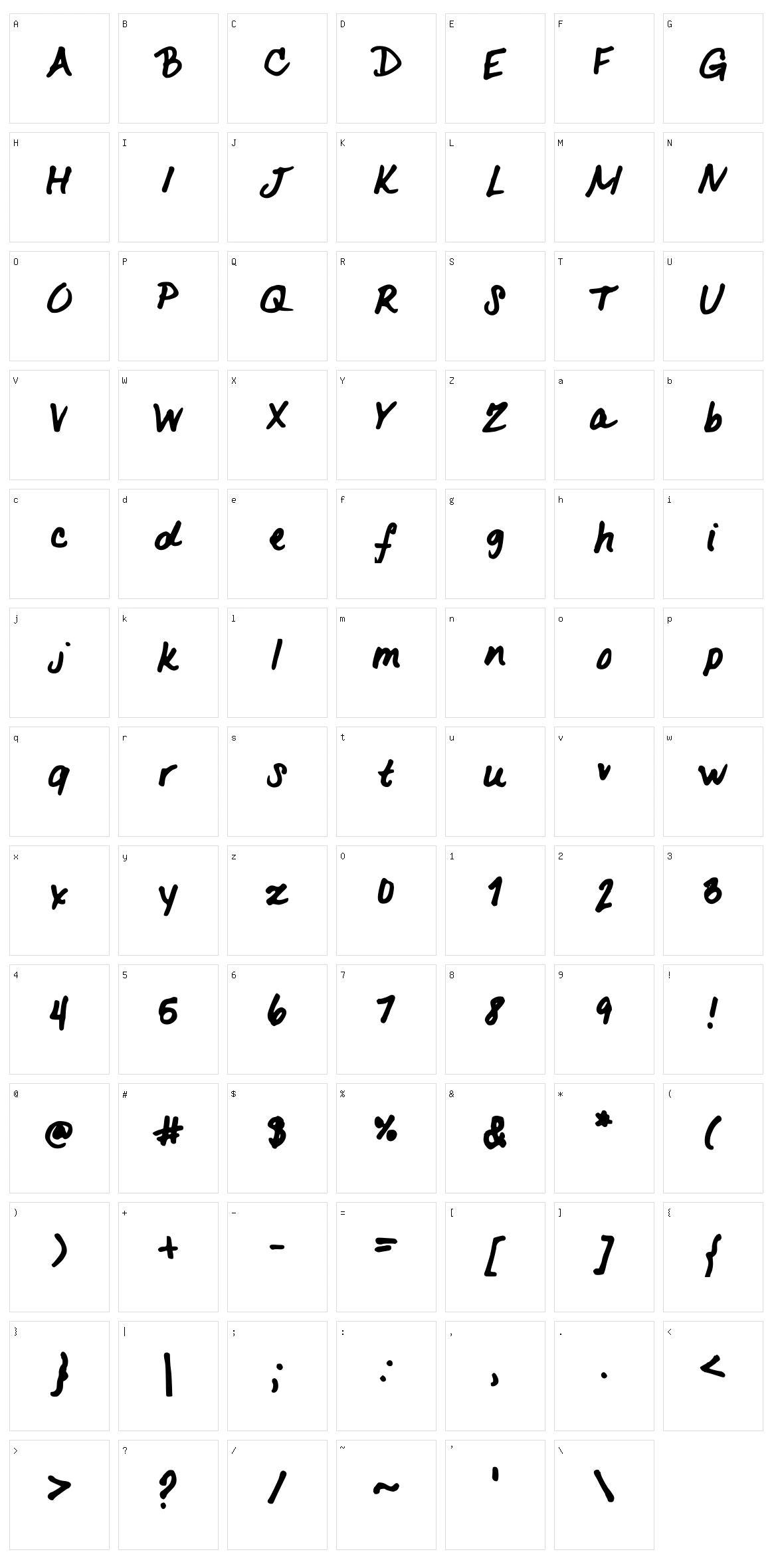
The free font LovelyK is carefully designed by Krista, showcasing a thoughtful balance of creativity and usability and falls under the Script font style. When you download the ZIP file, it contains only 19.29 KB of font files, making it lightweight and quick to download. Please review the license details below to understand permitted usage and distribution rights. If license information is not available, we recommend using this font for personal projects only or contacting the author directly for commercial usage permissions.